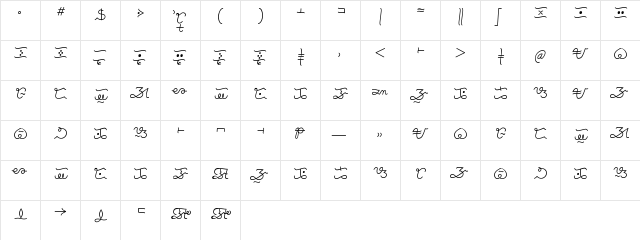
Maalong Tagalog 1 Linear Regular
Design Context for Maalong Tagalog 1 Linear Typeface
Maalong Tagalog 1 Linear is a composed and adaptable typeface that performs quietly and consistently across a wide range of design contexts.